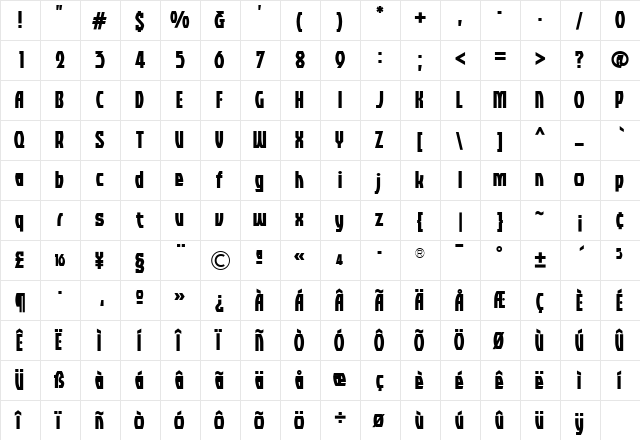
TFAkimbo Extrabold Font Preview
TFAkimbo Extrabold
TFAkimbo Extrabold Font Details
| Style | Extrabold |
| Foundry | Treacyfaces, Inc |
Design Context for TFAkimbo Typeface
TFAkimbo offers clean, dependable letterforms without strong stylistic allegiance, making it a practical choice for designers who need flexibility. Its bold stroke weight gives it real presence on the page.